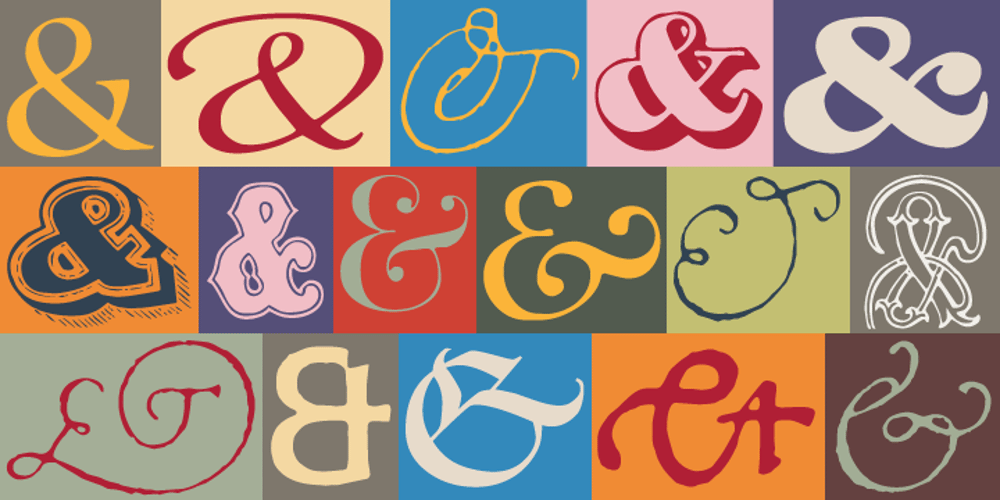
Ampersands Font Family was designed by Jason Castle and published by CastleType. Ampersands contains 2 styles and family package options. Each font contains 101 decorative ampersands. These fonts include ampersands from various display fonts in the CastleType Library as well as antique, ornate and calligraphic ampersands.